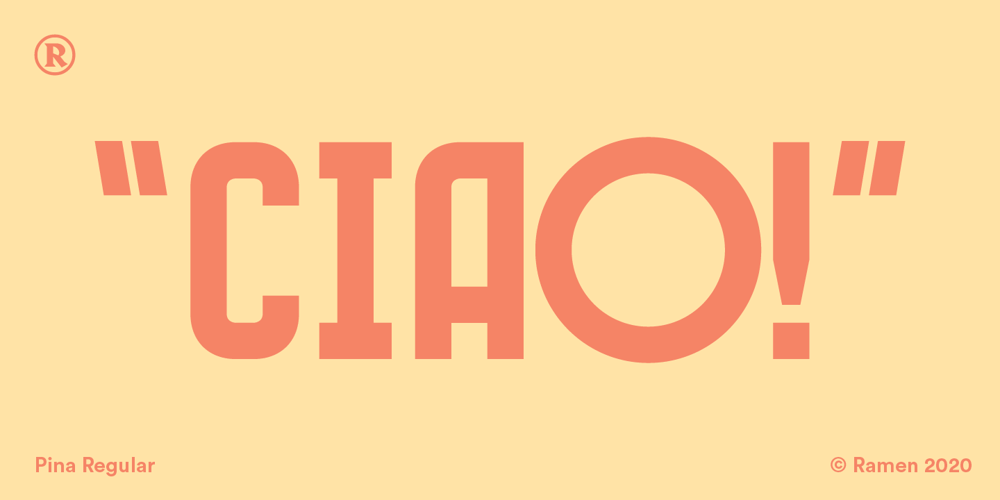
Pina Font Family was designed by Dave Wells and published by Ramen. Pina contains 3 styles and family package options. Pina is a typefaced based on Italian signage, incorporating simplified shapes for the letters and unique characters. The barebones S and the perfectly circular O are examples of the type of lettering you’d likely see on awnings. These letters have a thin footprint, and are quite condensed apart from certain letters like O and Q, which gives the font a unique bounce. It includes plenty of alternates, to letters like O, S, Q, R, K, and special ligatures for specific pairs.This font is named after my grandmother from Italy, Josephine, who was a wonderful figure in my life.